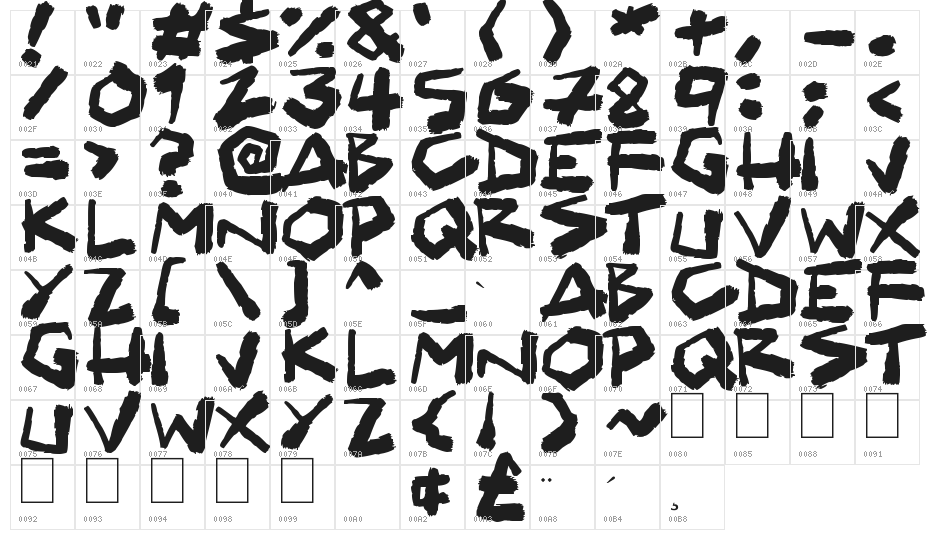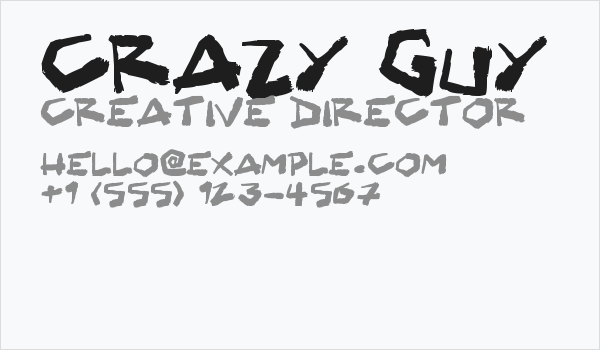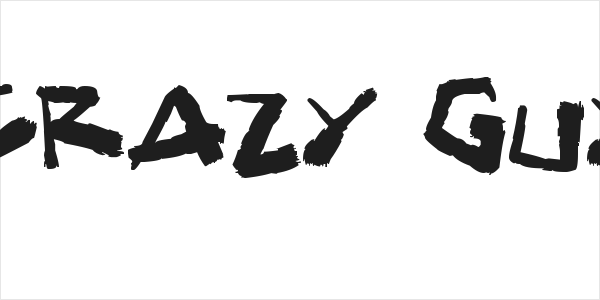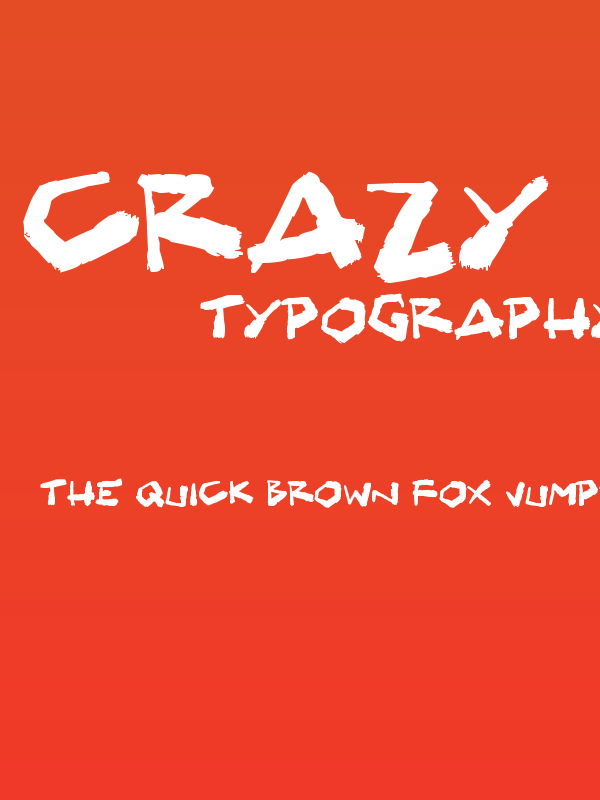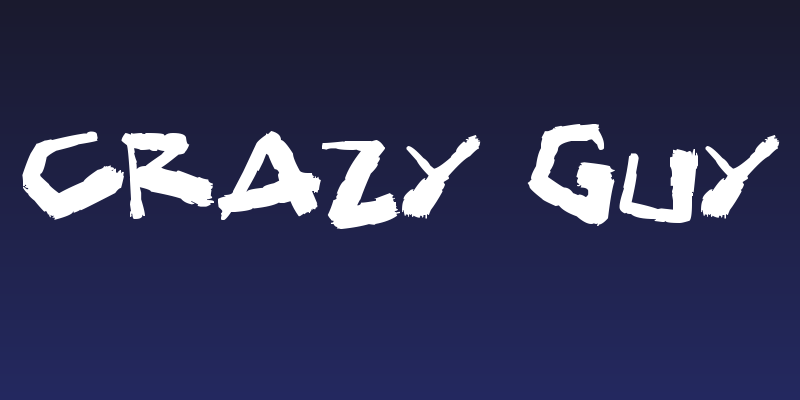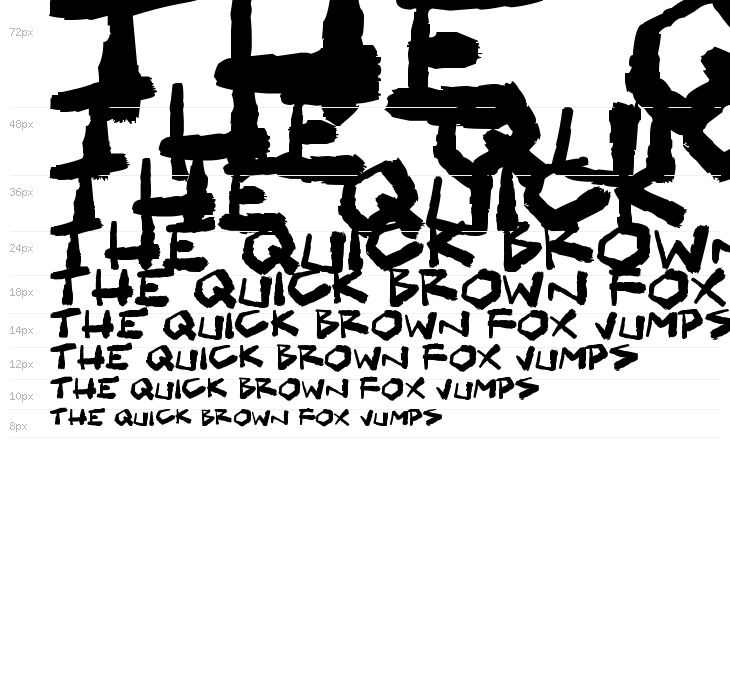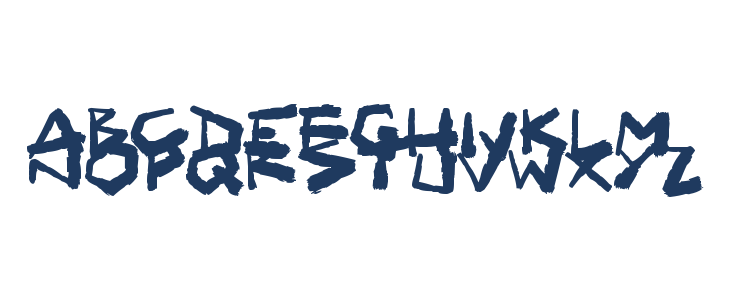
Crazy Guy Font
Crazy Guy Description
This font exhibits a bold, energetic style with a hand-drawn appearance. The characters are irregular and dynamic, giving a sense of movement and spontaneity. The strokes are thick and uneven, creating a rugged and raw aesthetic. This font captures attention with its unique and expressive design, making it suitable for projects that require a bold statement. The uppercase and lowercase letters maintain a consistent style, while the numbers and special characters complement the overall look with their distinctive shapes.
Proposed ProjectsIdeal for posters, album covers, graffiti art, and any project needing a bold, expressive touch.